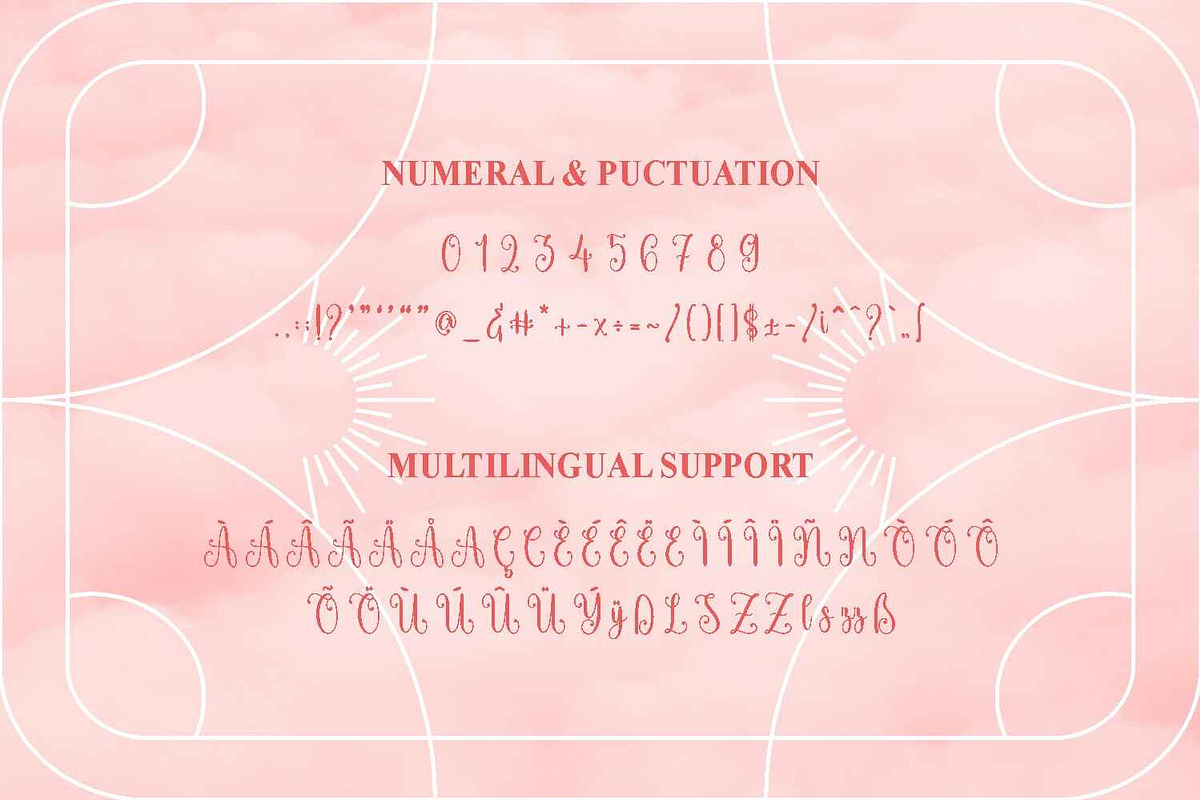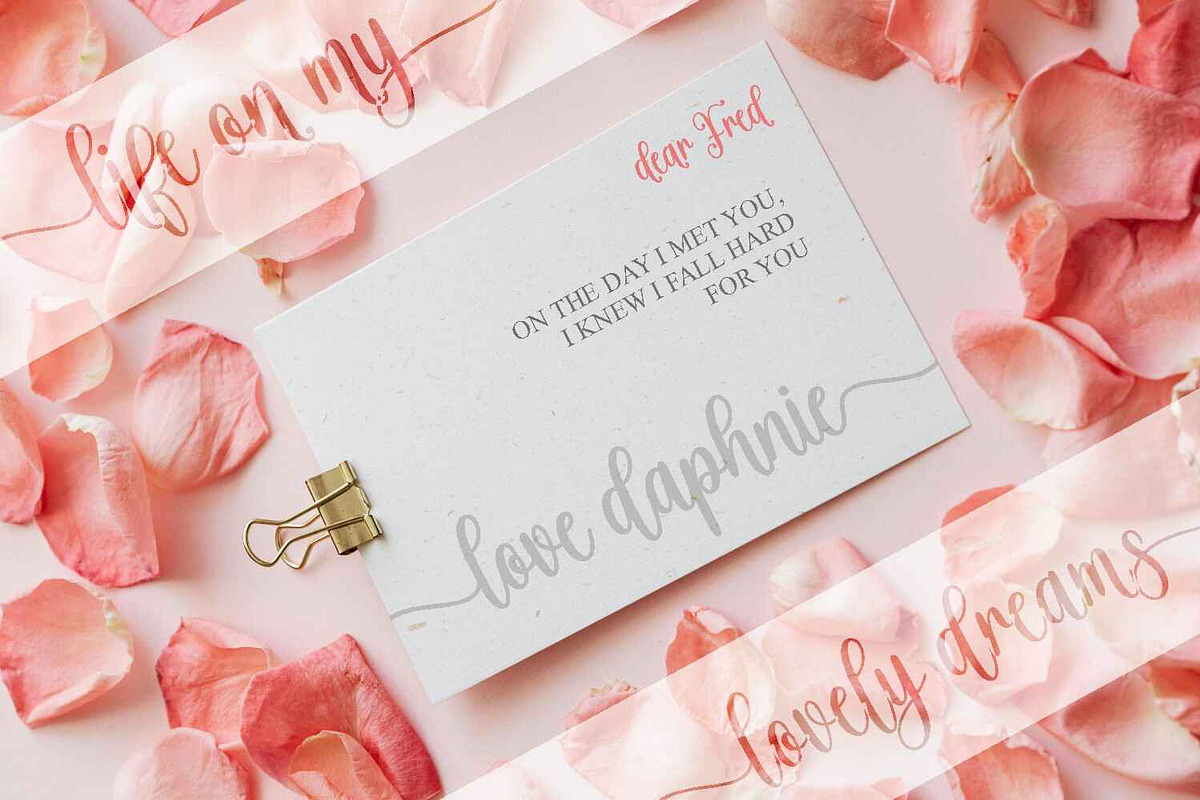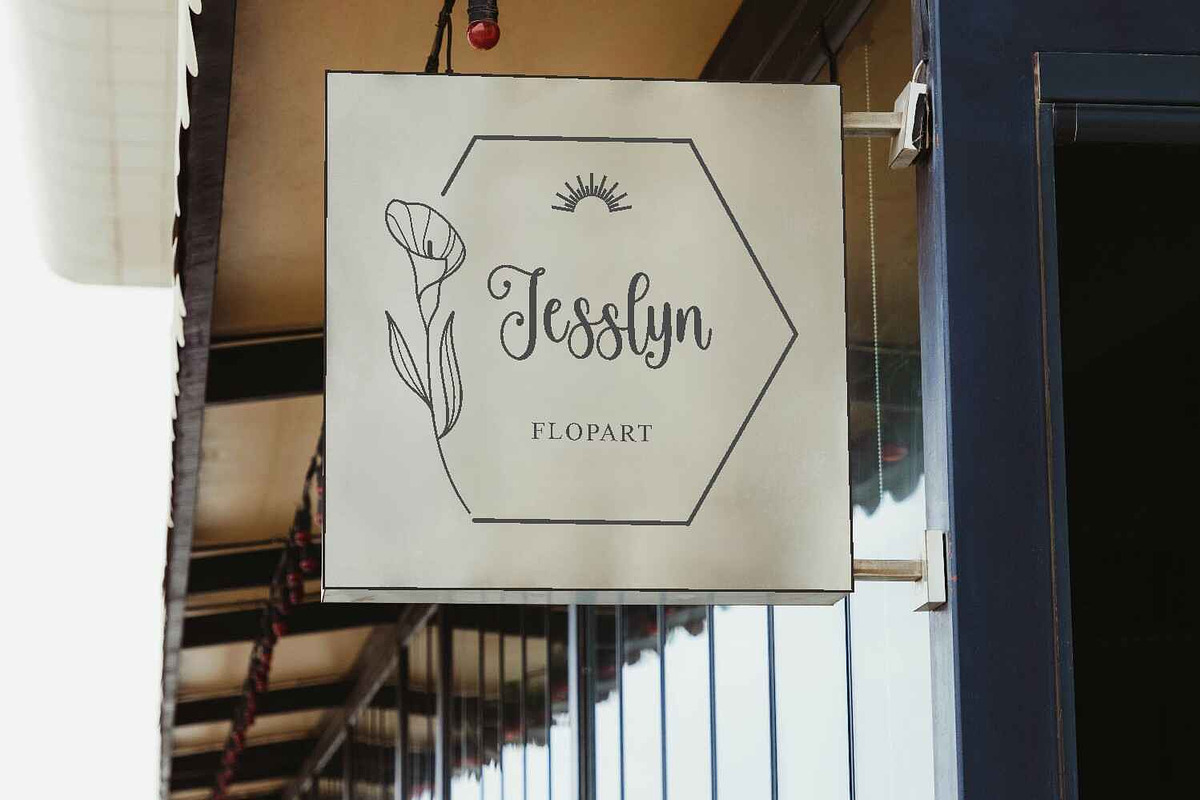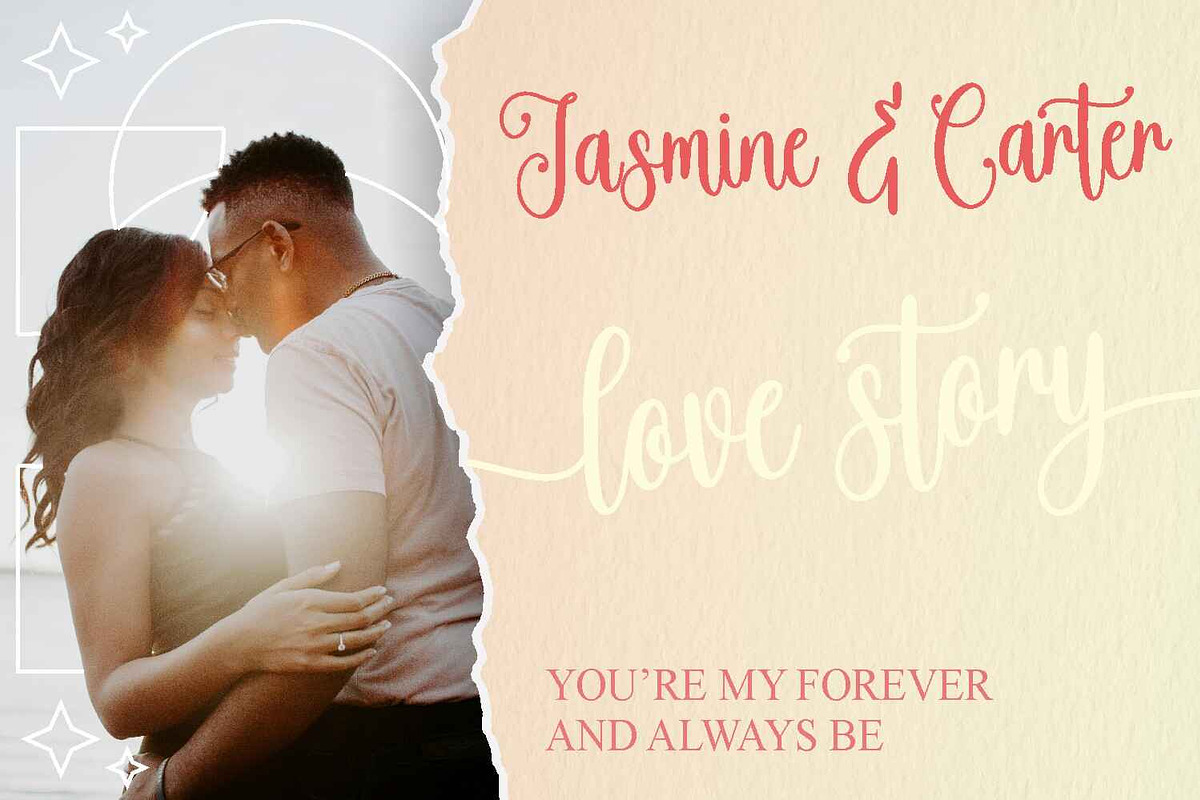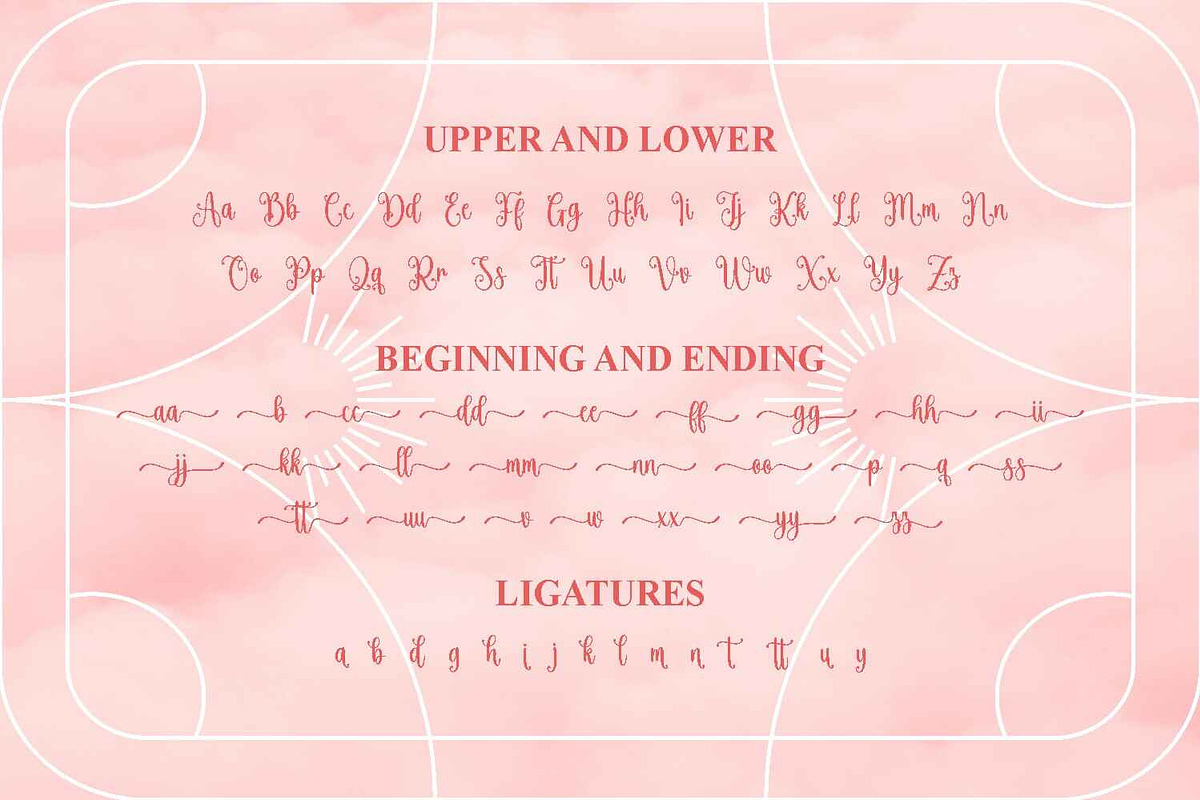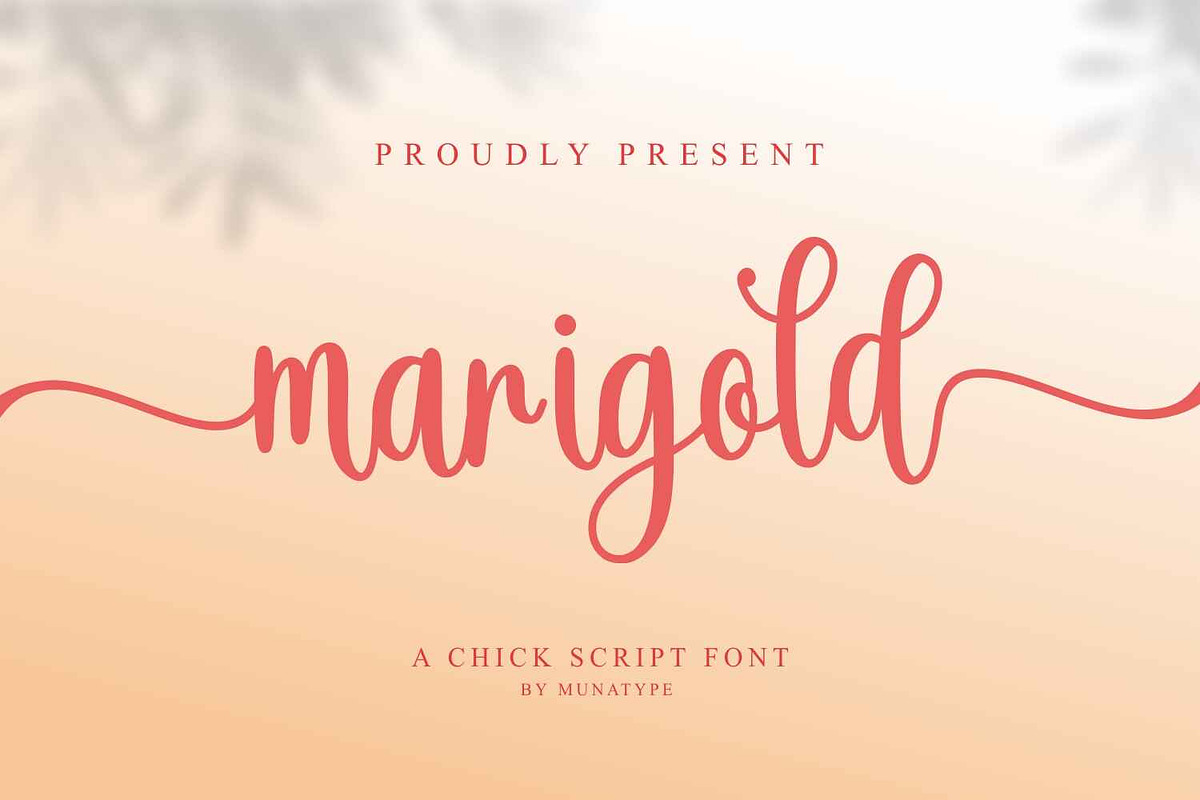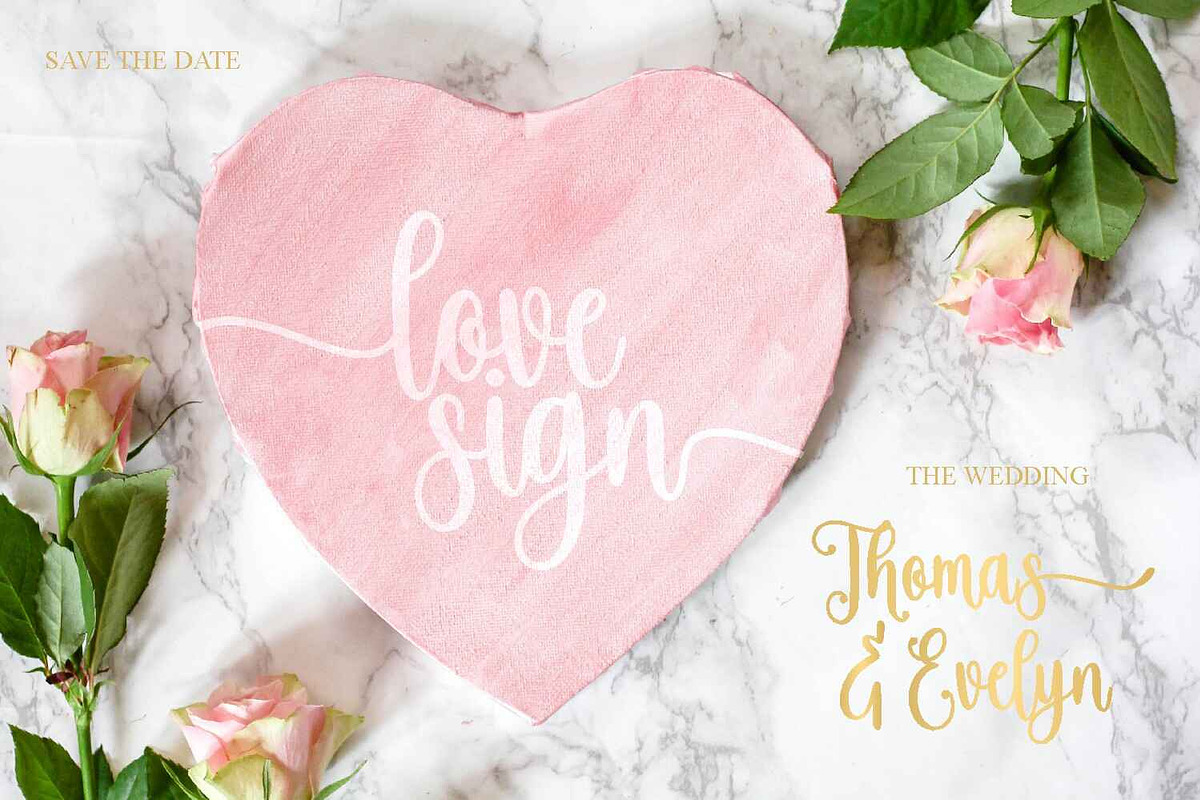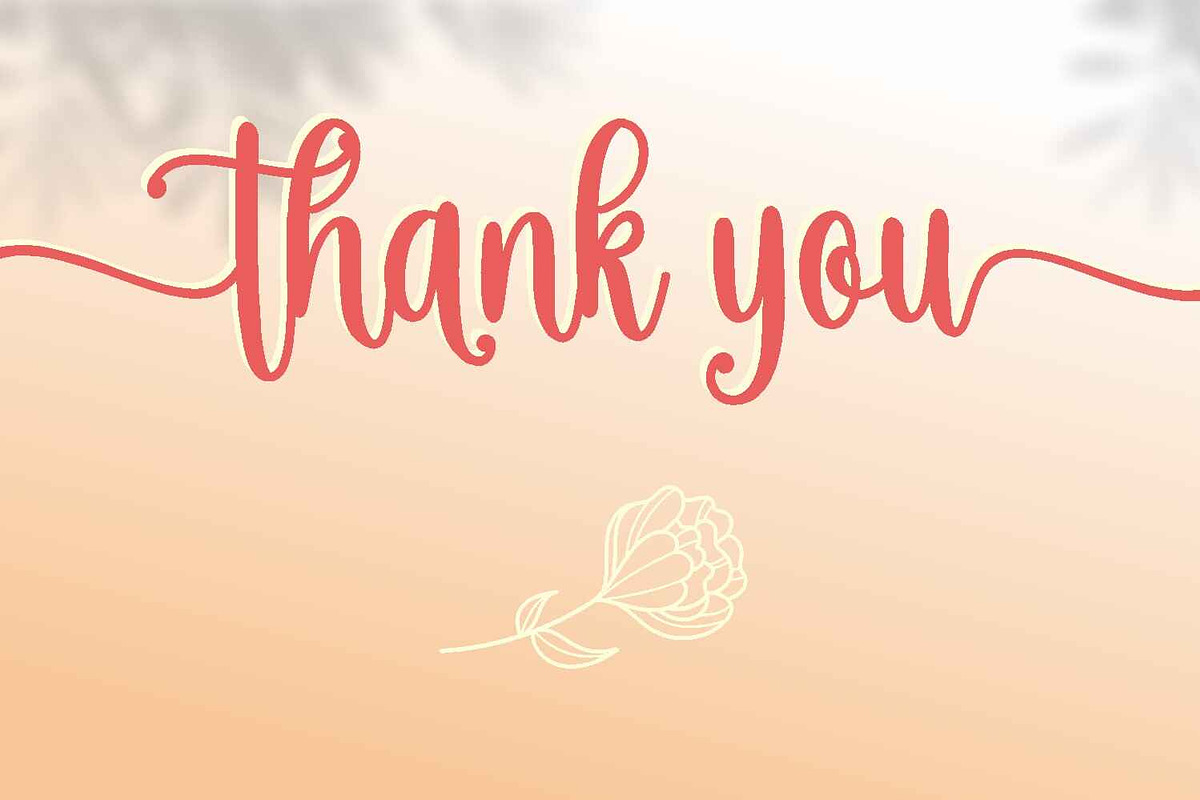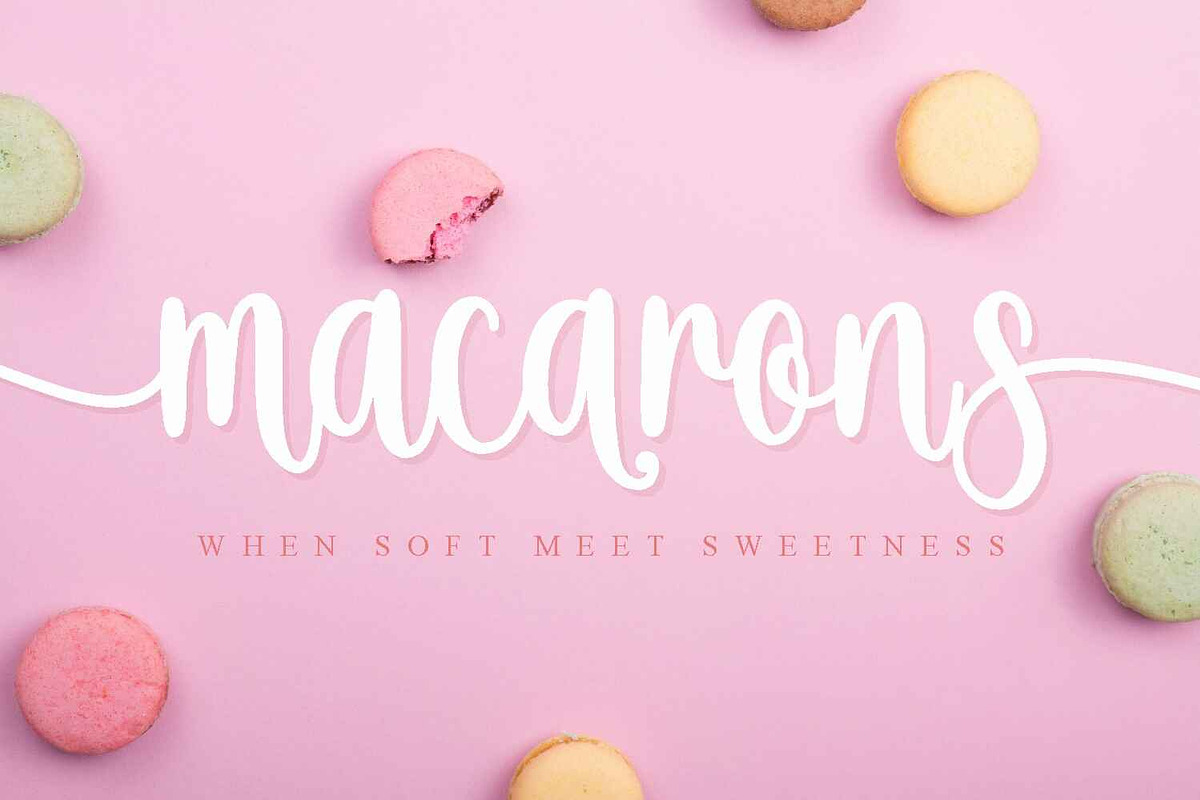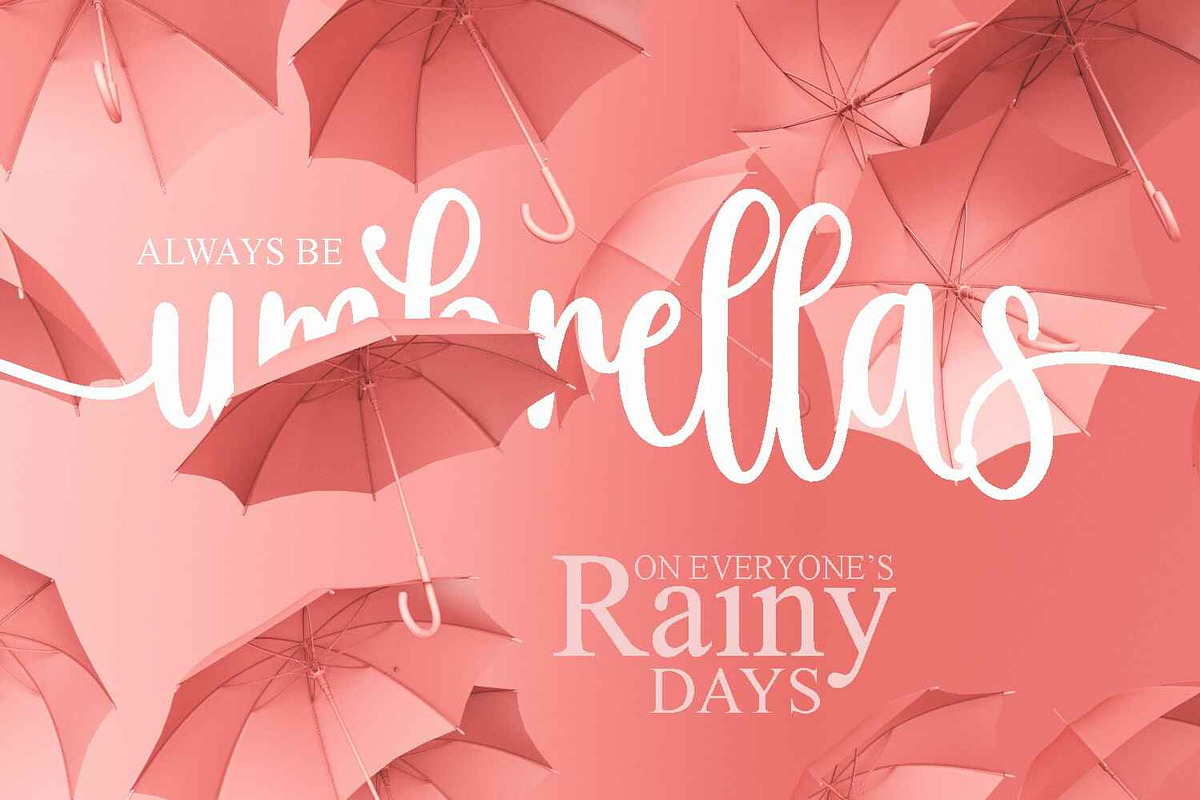
Marigold
Introducing "Marigold," a charming script handwritten font that exudes elegance and warmth. Perfect for a wide array of themes, including weddings, invitations, birthdays, crafting, Christmas, New Year, winter, Easter, Cricut projects, embroidery, Thanksgiving, and more. This versatile font is designed to bring a touch of sophistication and beauty to every project.
"Marigold" features graceful beginning and ending washtails on each character, adding a lovely flourish to your text. With a rich variety of alternate characters, this font allows you to craft unique and personalized designs with ease. Whether you're creating delicate wedding invitations, festive holiday cards, or charming birthday wishes, "Marigold" ensures your message shines with style.
Let your creativity blossom with "Marigold." Whether you’re working on Cricut projects, embroidery, or crafting, this font will elevate your designs to new heights. The elegant swashes and alternates provide endless opportunities to create something truly unique and special, making every project a work of art.